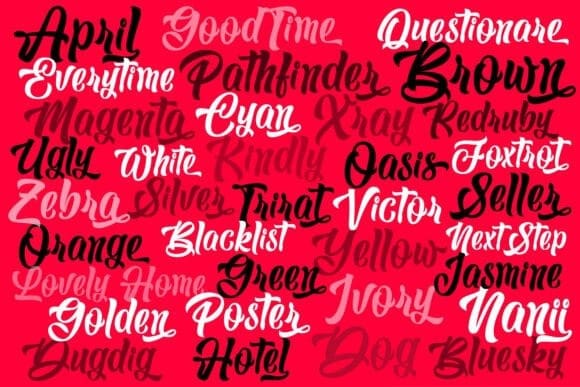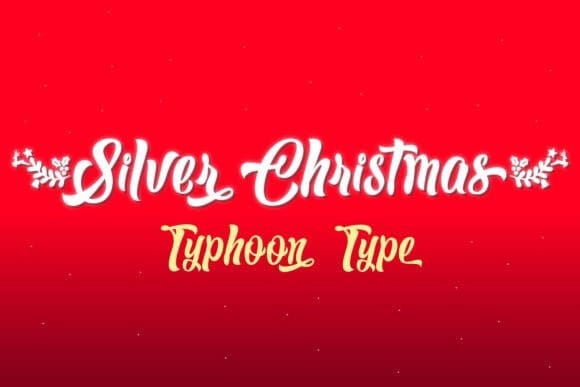
Silver Christmas Font
Silver Christmas Font is a festive font that captures the essence of Christmas cheer with a retro ribbon-style, flat-brush script. Designed with fluid strokes, each character brings a sense of movement and rhythm, perfectly embodying the joyful spirit of the holiday season. The letters are slightly slanted, adding a lively, dynamic feel to your text.
Each lowercase letter includes an alternative option (PUA encoded) with retro-styled, sweeping tails, allowing for decorative flourishes that enhance the end of sentences. A unique feature of Silver Christmas is that typing the symbols “{” and “}” produces Christmas holly accents, adding a seasonal touch to frame and decorate words, perfectly complementing Christmas themes.
With its elegant readability and charming style, Silver Christmas is ideal for a variety of advertising and promotional projects, bringing a festive and visually captivating element to your designs.